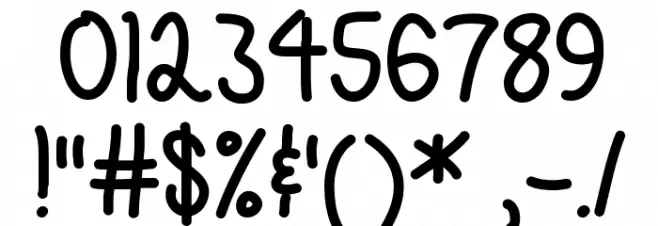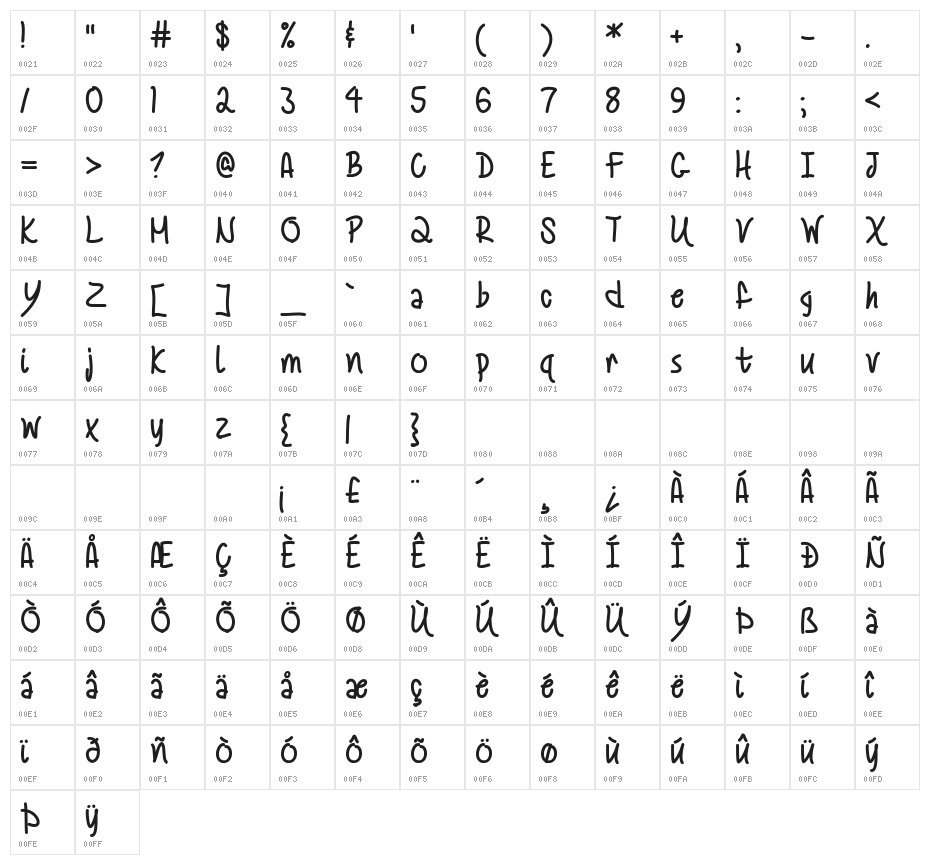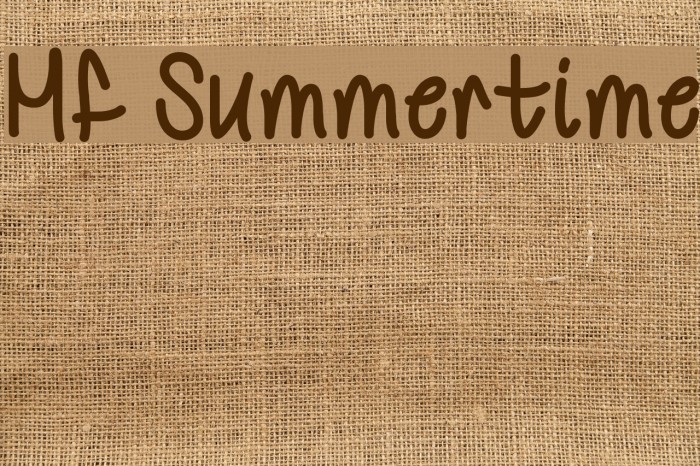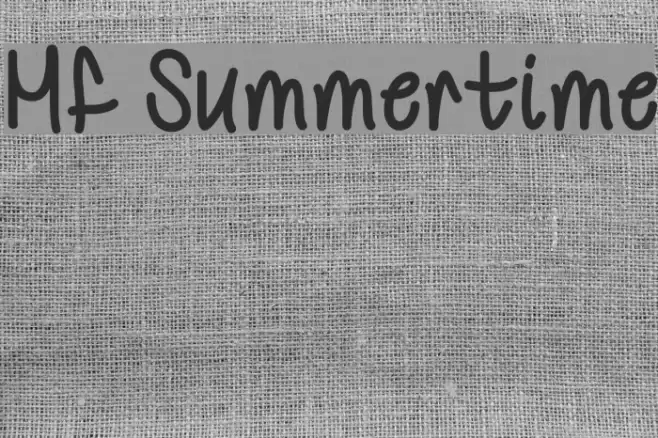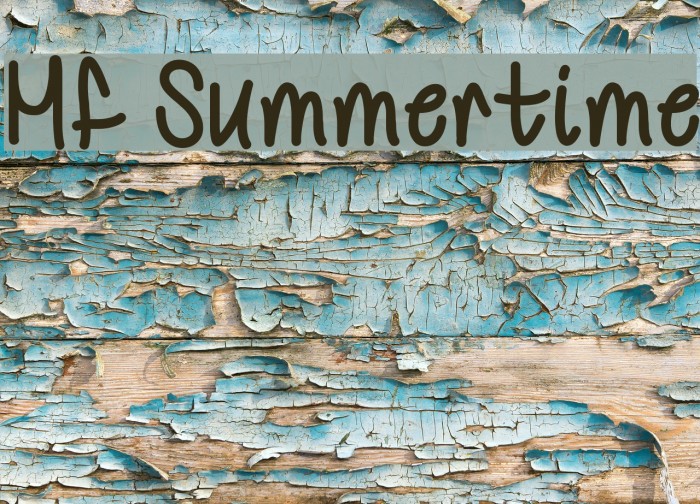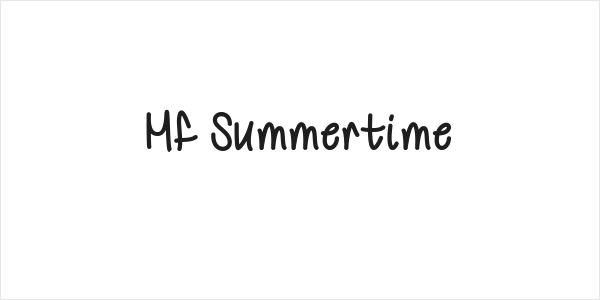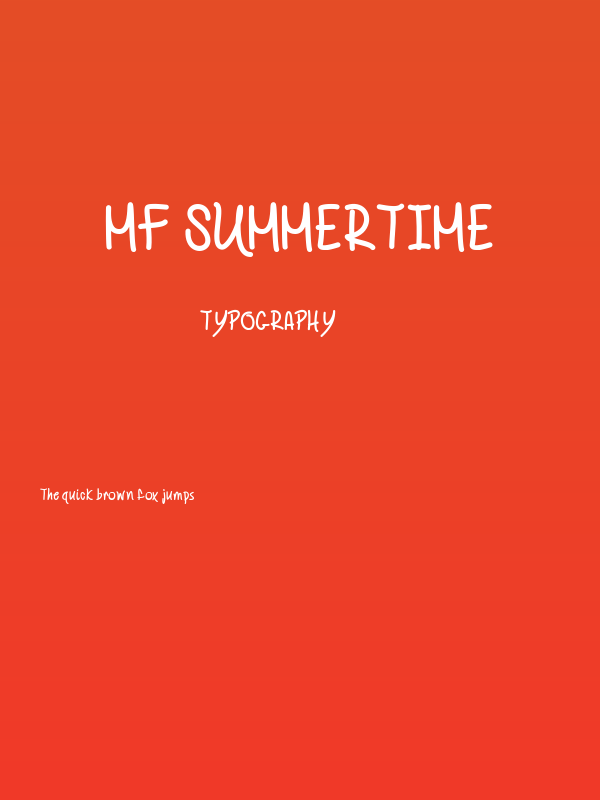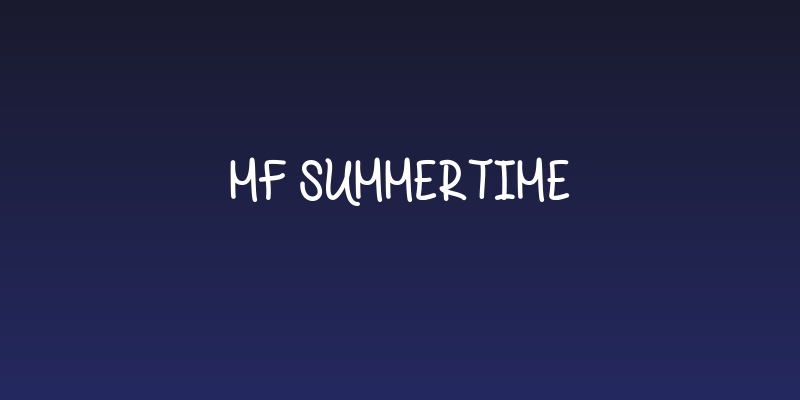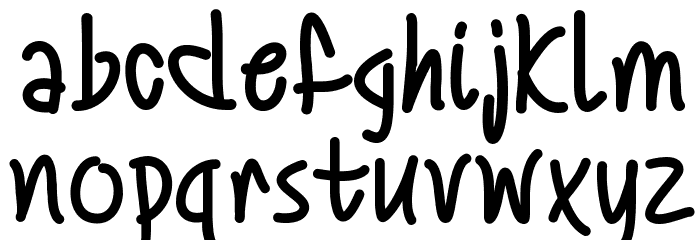
Mf Summertime Font
Mf Summertime Description
This playful and whimsical font features a handwritten style with a casual and friendly appearance. The characters are rounded and slightly irregular, giving them a natural and organic feel. The uppercase and lowercase letters maintain a consistent flow, with a slight slant that adds to the informal charm. The numbers and special characters are designed to match the overall style, ensuring a cohesive look across all text. This font exudes a sense of fun and creativity, making it ideal for projects that require a personal touch.